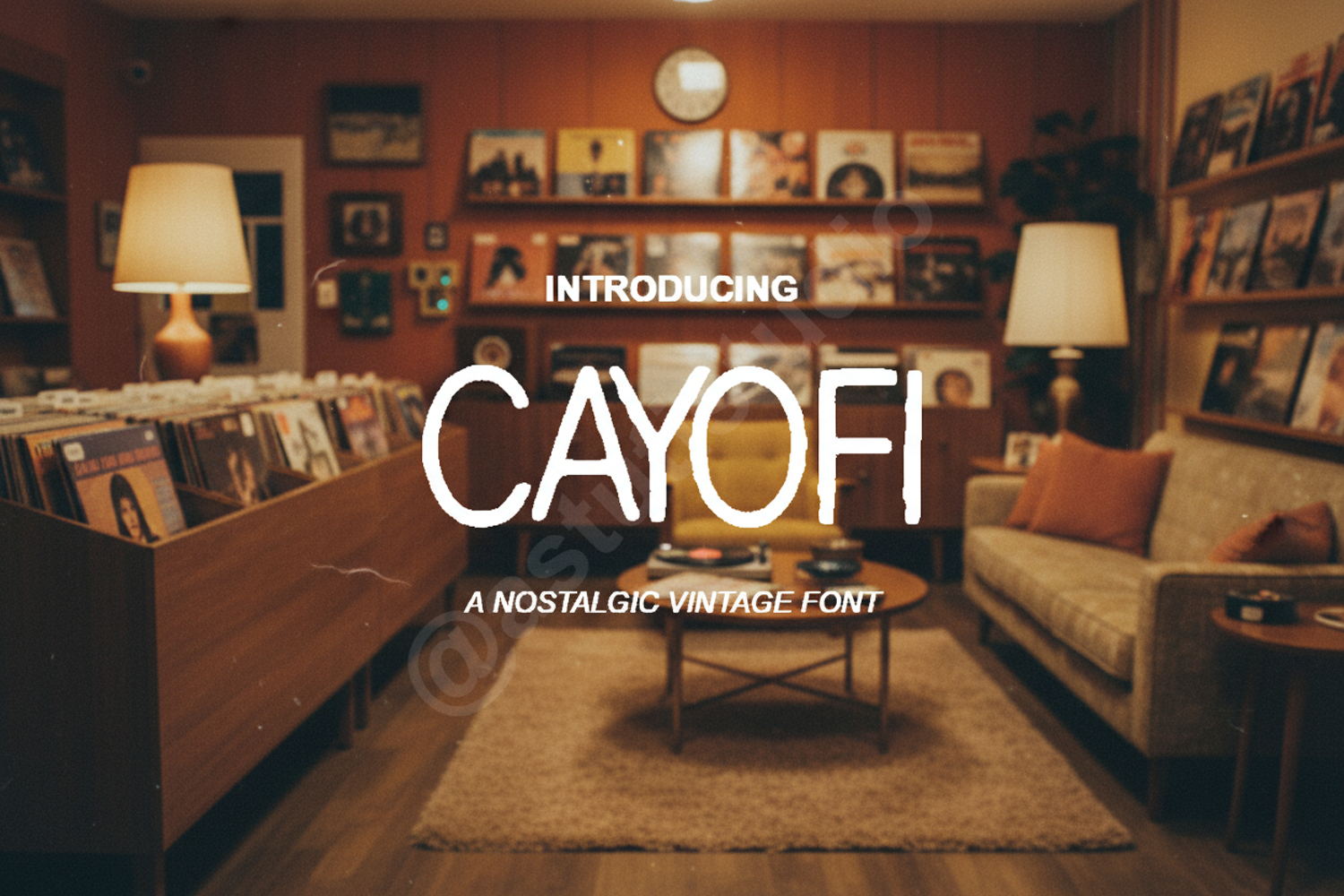
Cayofi - Sophisticated Modern Serif Typeface
Cayofi
Cayofi is a premium serif font that blends classic elegance with modern minimalism. Designed with precision, this typeface offers a clean and sophisticated aesthetic that elevates any creative project. Whether you are working on a high-end brand identity or a minimalist editorial layout, Cayofi provides the perfect balance of style and readability.
- Full set of uppercase and lowercase letters
- Comprehensive numbers, punctuation, and symbols
- Essential ligatures for seamless typographic flow
- Extensive multilingual character support
- Luxury Branding: Create high-end logos and memorable brand identities.
- Wedding Stationery: Design elegant invitations, menus, and save-the-date cards.
- Editorial Design: Perfect for magazine headers, book covers, and sophisticated layouts.
- Social Media: Enhance your digital presence with premium-looking graphics.
- Packaging: Ideal for cosmetic, fashion, and high-end lifestyle product labels.